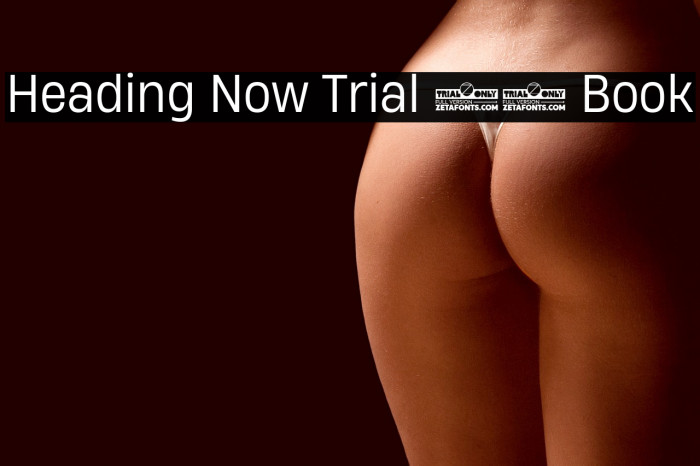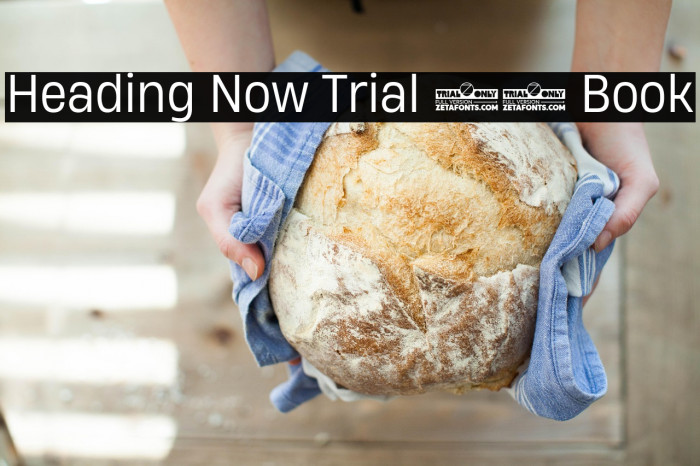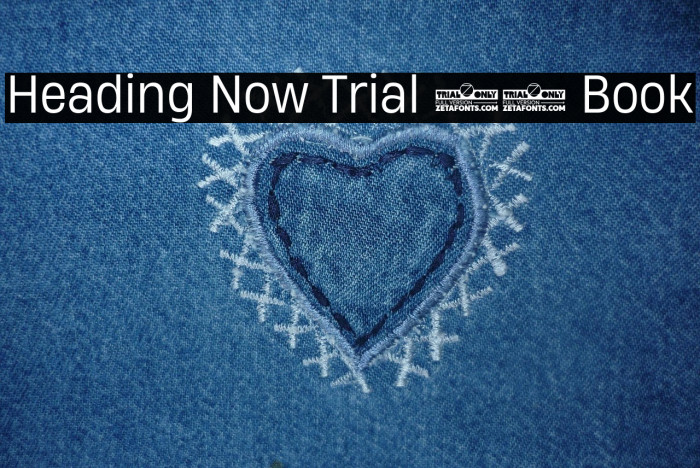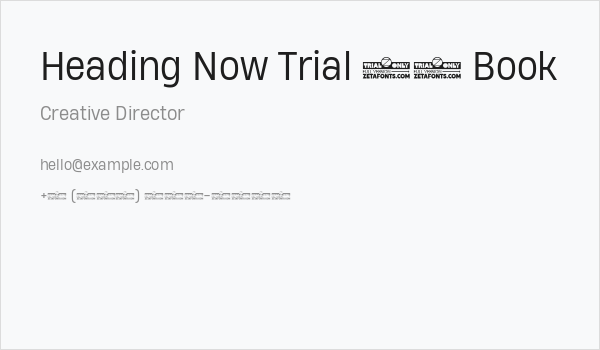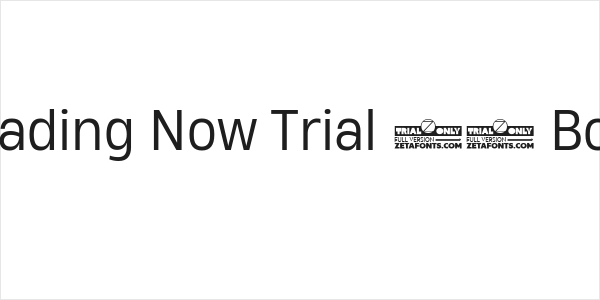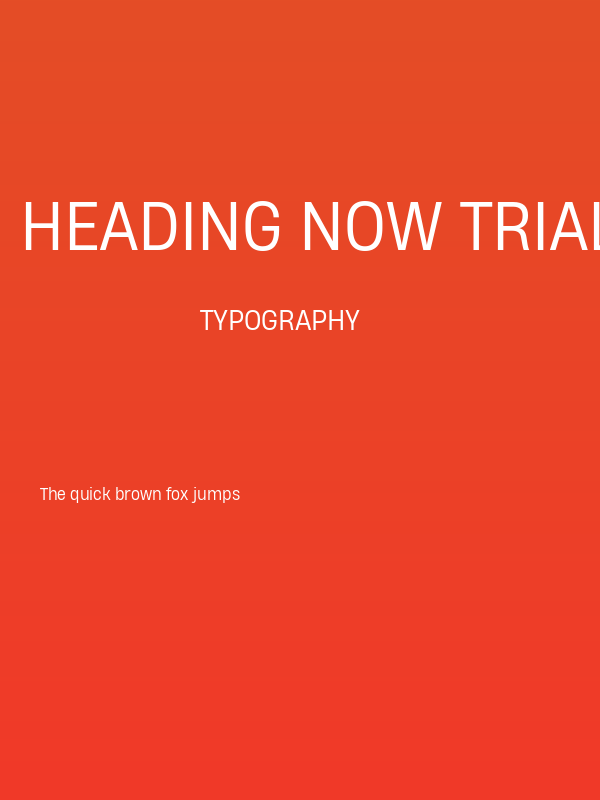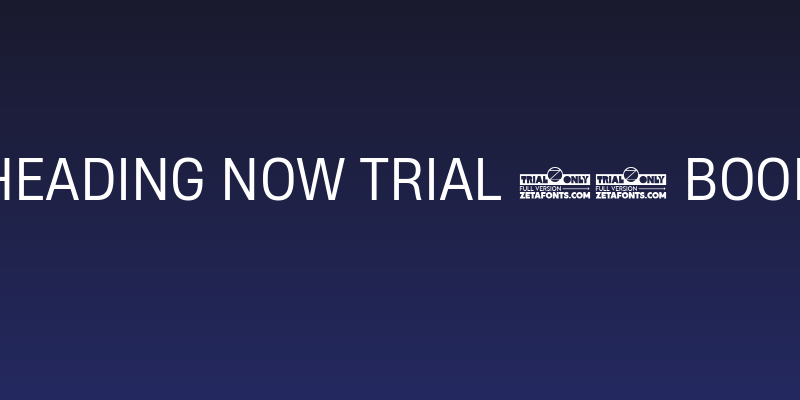
Heading Now Trial 63 Book Font
Heading Now Trial 63 Book Description
This typeface presents a clean and modern sans-serif style, characterized by its geometric shapes and uniform stroke widths. The uppercase letters are bold and assertive, while the lowercase letters maintain a consistent and harmonious appearance. The numerals and special characters are designed with clarity and simplicity in mind, making them easily legible. The overall design is versatile, suitable for a variety of applications where readability and a contemporary look are desired.
Proposed ProjectsIdeal for branding, advertising, web design, and editorial projects where a modern and clean aesthetic is required.